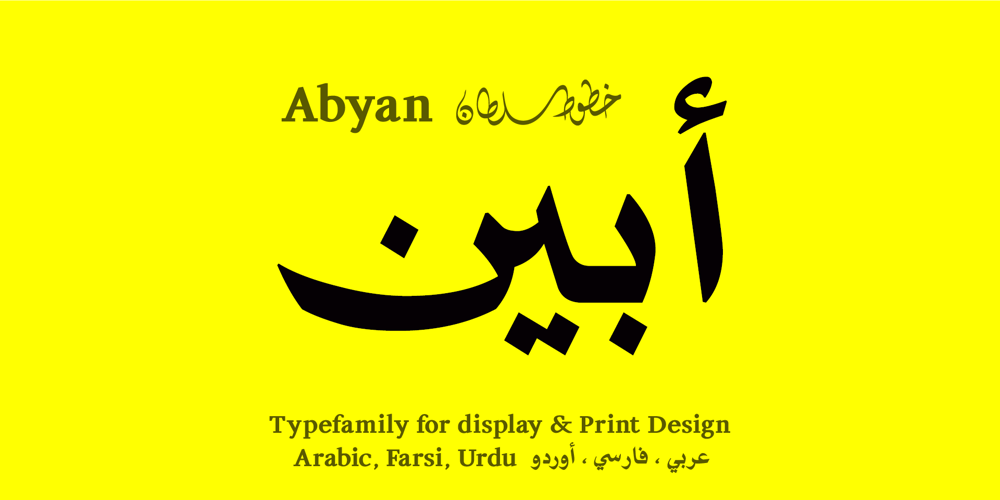
SF Abyan Font Family was designed by Sultan Maktari and published by Sultan Fonts. SF Abyan contains 1 styles and family package options. Abyan is An Arabic typeface for desktop applications & display. Abyan is suitable for large display sizes, especially in the area of advertising, while still functioning well as a text face. The font includes a matching Latin design and support for Arabic, Persian, and Urdu. It also includes proportional and tabular numerals for the supported languages. Abyan typeface comes with many opentype features. Designer: Sultan Maqtari Design date: 2019 Publisher: Sultan Fonts